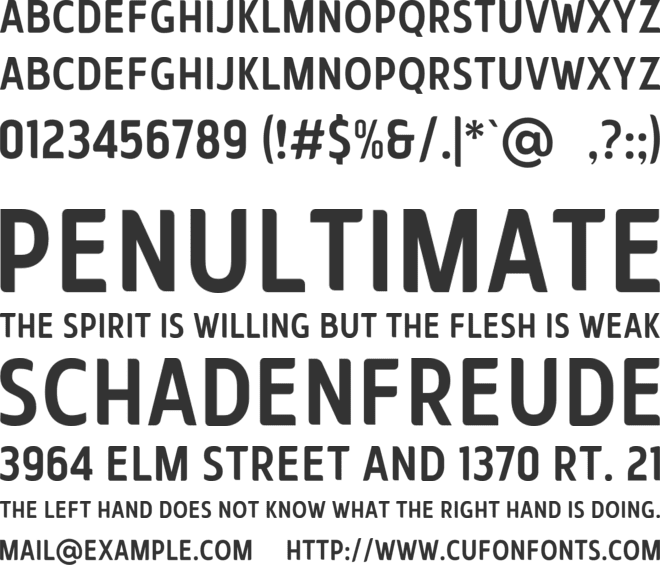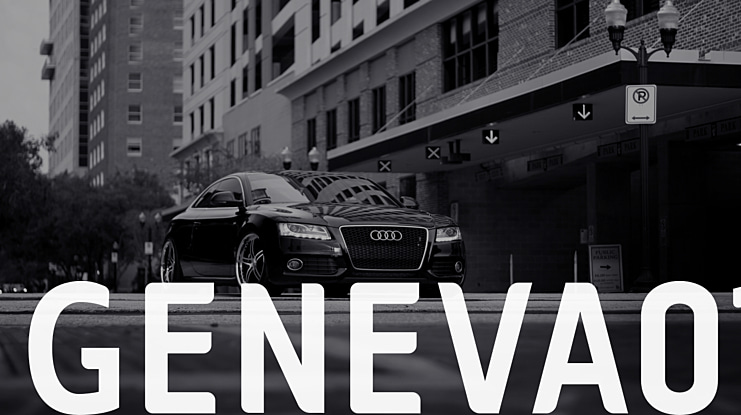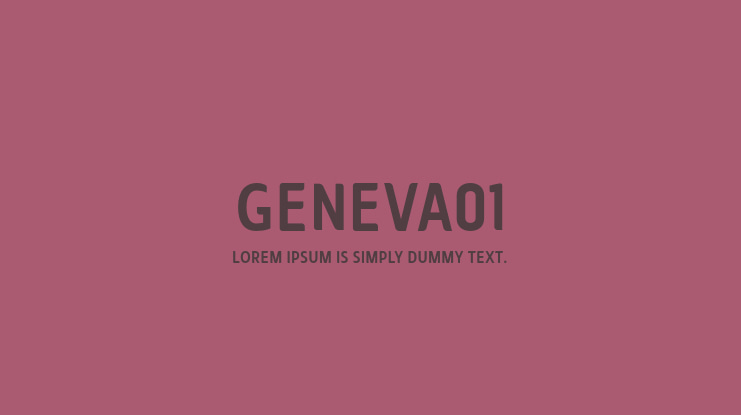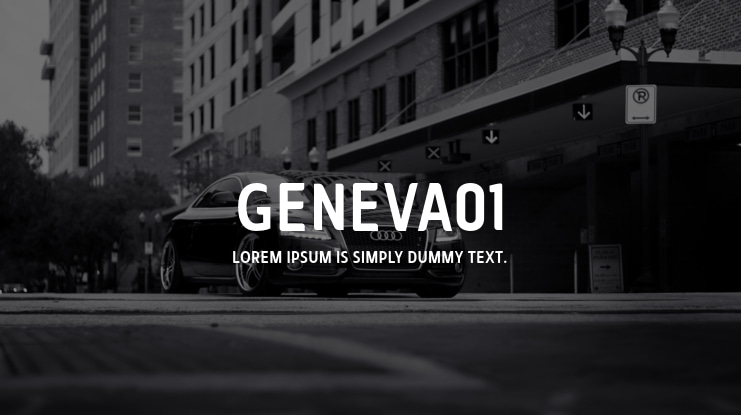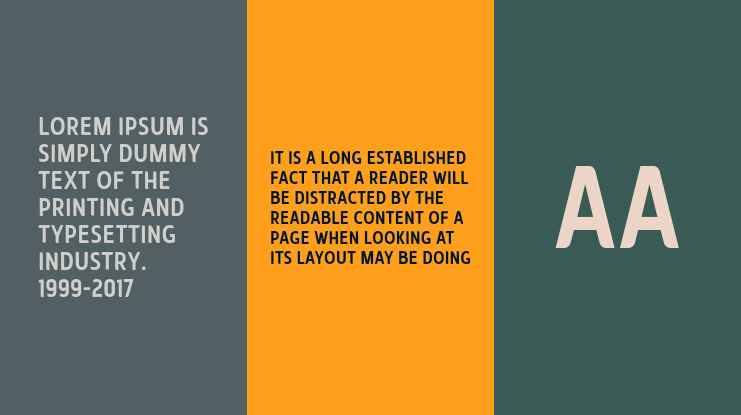
Geneva is a versatile font family that offers 7 different styles of numerals. It is specifically designed for use on football, soccer, and other sports jerseys for displaying player names and numbers. However, Geneva, with its clean and modern san serif typeface, is also well-suited for various other design purposes.
While the numerals vary across the different fonts, the base characters (including alphabets and punctuation) remain the same. Additionally, Geneva includes standard punctuation and supports multiple languages.